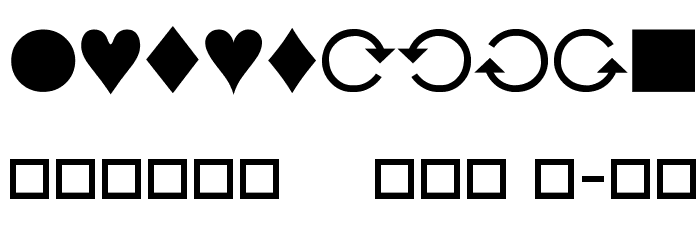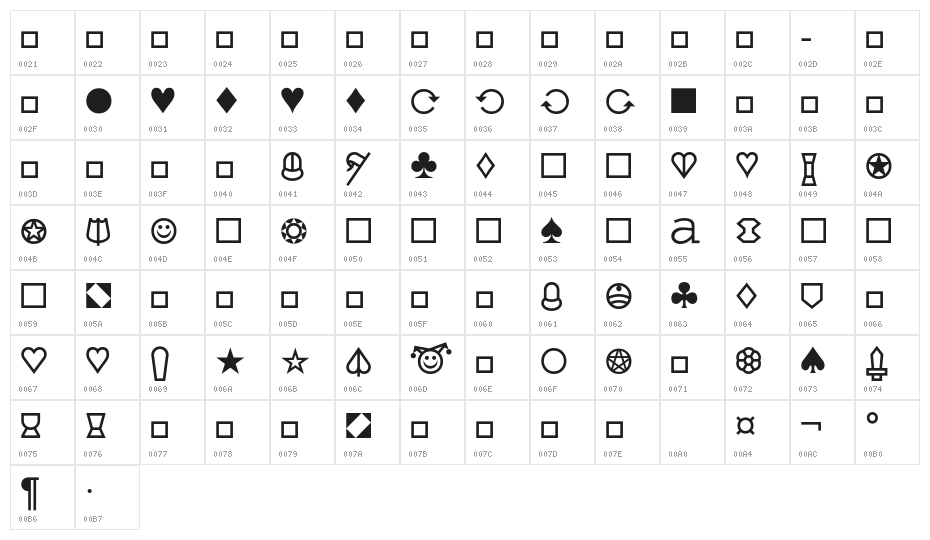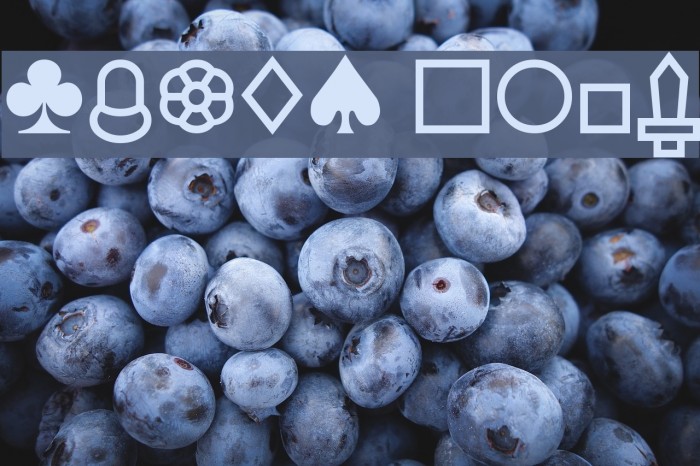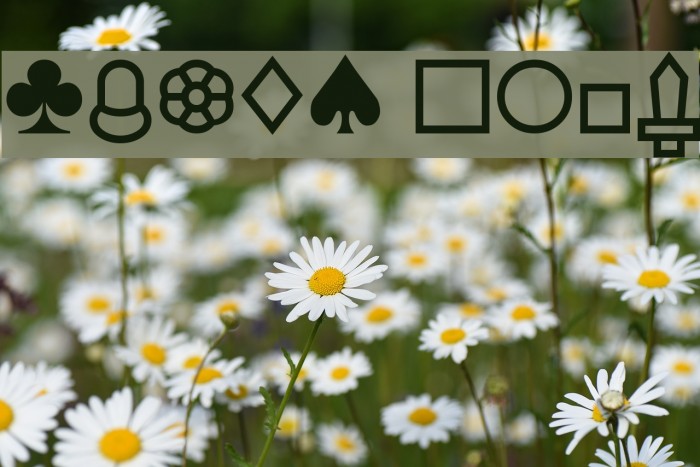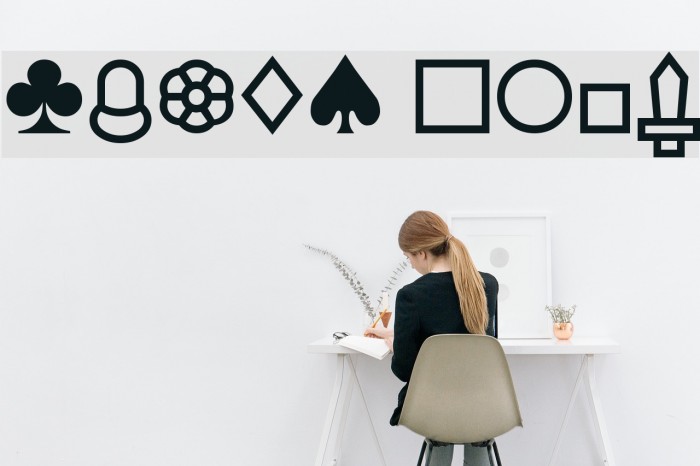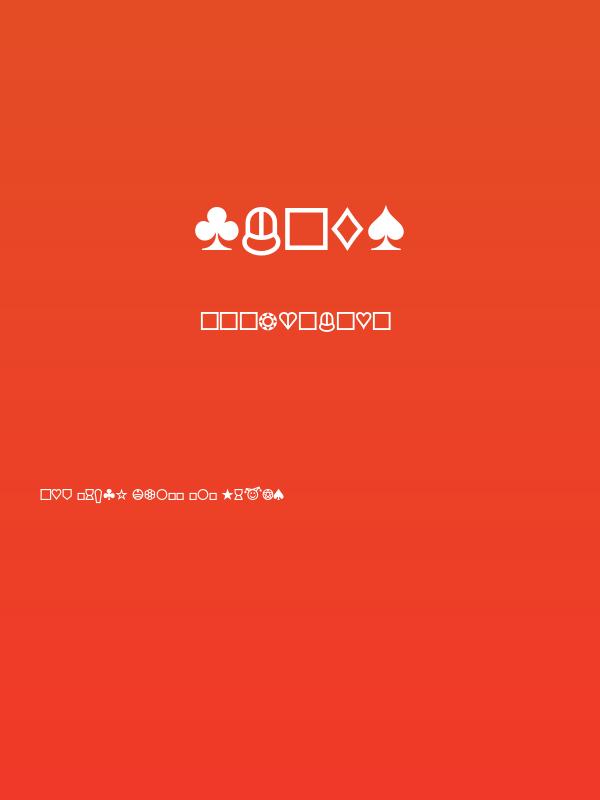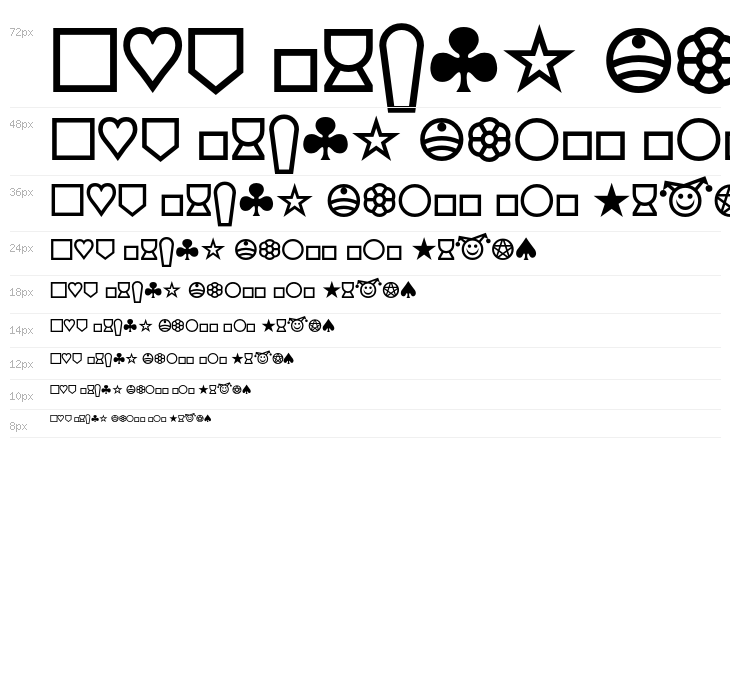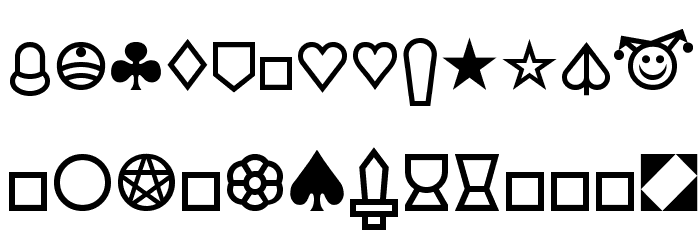
Cards Font
Cards Description
A decorative dingbat font featuring a variety of card suits, geometric shapes, stars, arrows, smiley faces, and playful icons. The glyphs are bold, highly stylized, and designed for visual impact rather than readability.
| Overall Style | Decorative, Playful |
| Use Case | Icons, Decorative elements, Game graphics |
| Proposed Projects | Playing card designs, party invitations, game interfaces, posters, decorative dividers. |